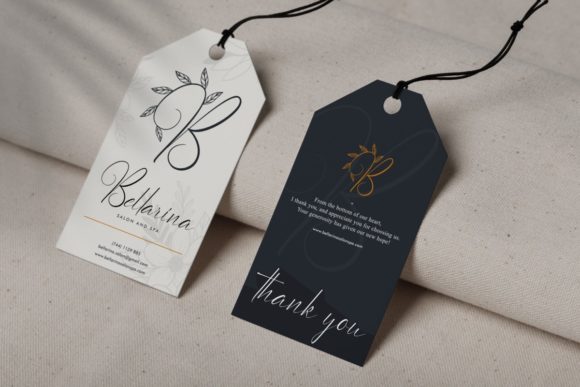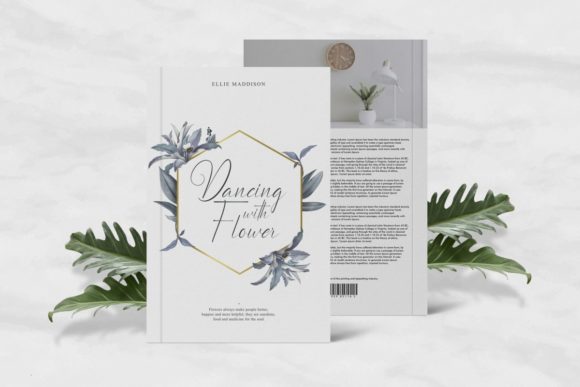
Waterflowers Font
db-ku.com - Script & Handwritten -- Waterflowers is an elegant calligraphy script font with sophisticated characters, stylish swash, and gorgeous alternates. It is perfect for invitation calligraphy, luxury branding, fashion promotions, song title, and many more projects. This font is crafted carefully in every single scratch, created to look as close to natural handwriting as possible so that it can create the perfect combination on each glyph.